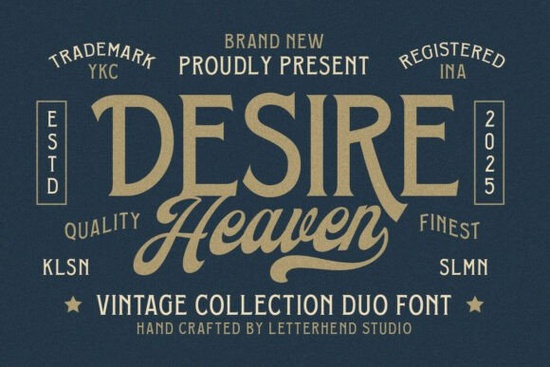
If you're working on a branding project that calls for timeless sophistication think boutique spirits, luxury stationery, or vintage-inspired logos you’ve probably searched for fonts that balance boldness with elegance. That’s where the Desire Heaven Font stands out. This vintage duo pairs a commanding serif with a graceful script, giving you two complementary typefaces in one package. It’s especially useful if you want your designs to echo the authentic charm of mid-20th century American signage without resorting to overused retro clichés.
The collection includes two distinct styles: a stately serif built for headlines and a fluid script perfect for accents or secondary text. Together, they create visual contrast while maintaining harmony a rare combination that’s hard to achieve with mismatched fonts. For small businesses or print-on-demand creators aiming for an upscale look, this pairing reduces the guesswork in font selection.
What makes the Desire Heaven Font work so well for branding?
Branding thrives on consistency and personality. The serif in the Desire Heaven set carries weight and authority ideal for logos, packaging headers, or storefront signs. Meanwhile, the script adds a human touch, suggesting craftsmanship and care. This duality mirrors how many premium brands communicate: confident yet approachable, classic but not stuffy.
You’ll find it particularly effective for:
- Alcohol or beverage labels – evoking heritage and quality
- Boutique product packaging – from candles to skincare
- Wedding invitations or event stationery – blending formality with warmth
- Logo design for lifestyle or artisanal businesses
Unlike single-style fonts that require you to hunt for a matching pair, this duo was designed to work together from the start. That saves time and ensures visual cohesion across your brand assets.
How does it compare to other vintage serif fonts?
Many vintage-inspired fonts lean heavily into distressed textures or exaggerated swashes, which can feel dated or overly theatrical. Desire Heaven avoids those pitfalls. Its serif is clean-lined and structured, while the script remains legible and refined not overly ornate. This restraint makes it more versatile for modern applications.
Can crafters and hobbyists use it effectively?
Absolutely. Even if you’re not a professional designer, this font duo is beginner-friendly. Most design platforms (like Canva, Adobe Express, or Silhouette Studio) support OpenType features, so you can easily switch between the serif and script versions. Use the bold serif for your main message (“Grand Opening”) and the script for a subtle tagline (“Since 1952”) to add depth without clutter.
For crafters making custom mugs, tote bags, or wall art, the contrast between the two styles creates instant visual interest. Just remember: less is more. Let one style dominate and use the other as an accent to avoid competing elements.
Quick checklist before using Desire Heaven in your next project:
- Define your primary message – assign the serif to headlines, script to supporting text.
- Test readability at small sizes – the script works best above 18pt; the serif holds up even smaller.
- Avoid over-decoration – let the fonts’ natural elegance shine without extra effects.
- Pair with neutral colors – cream, charcoal, or deep burgundy enhance the vintage mood.
Whether you’re launching a new brand or refreshing an old one, the Desire Heaven Font offers a balanced, historically grounded aesthetic that feels both nostalgic and fresh. It’s not just about looking vintage it’s about communicating quality through thoughtful typography.